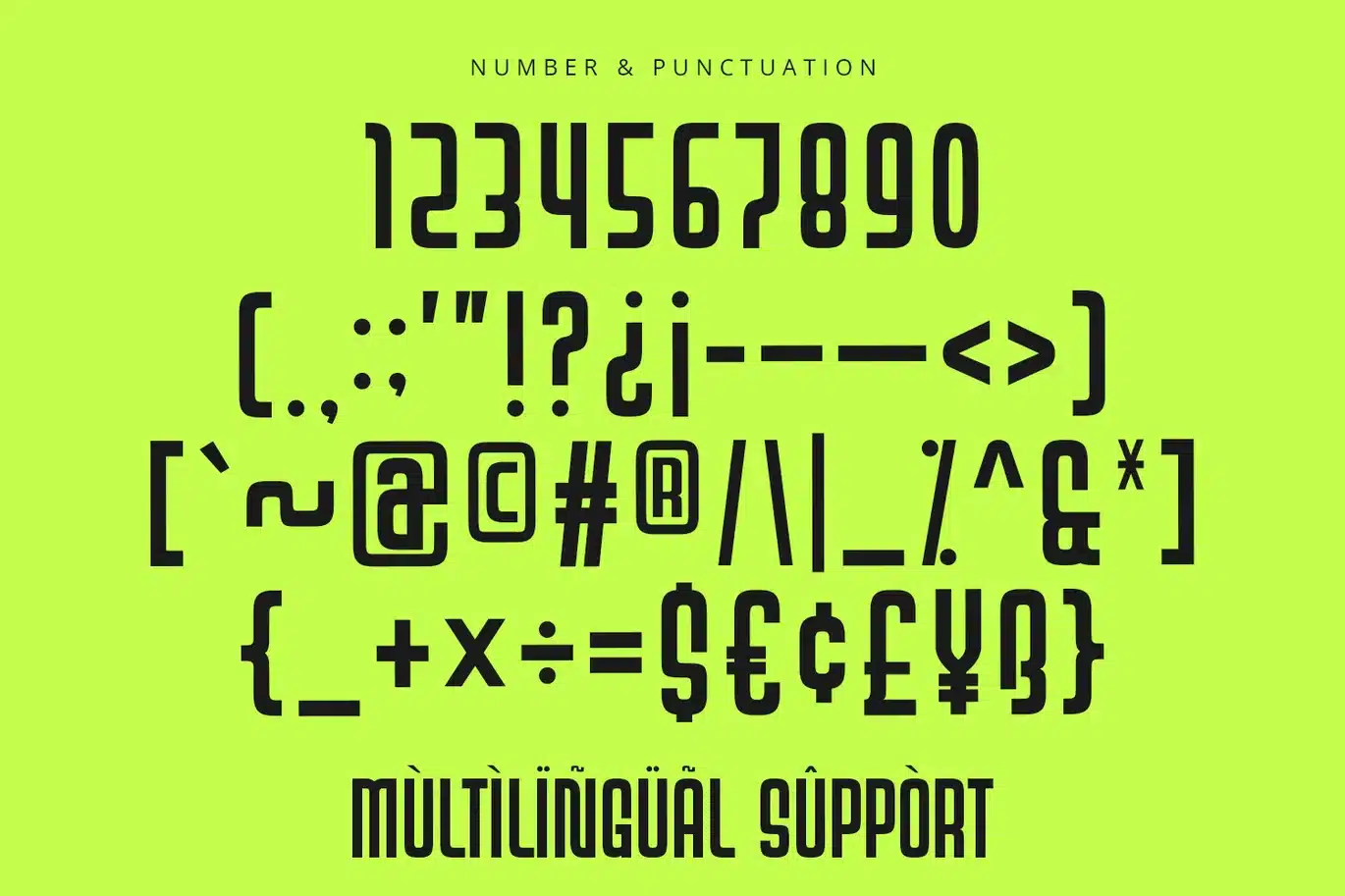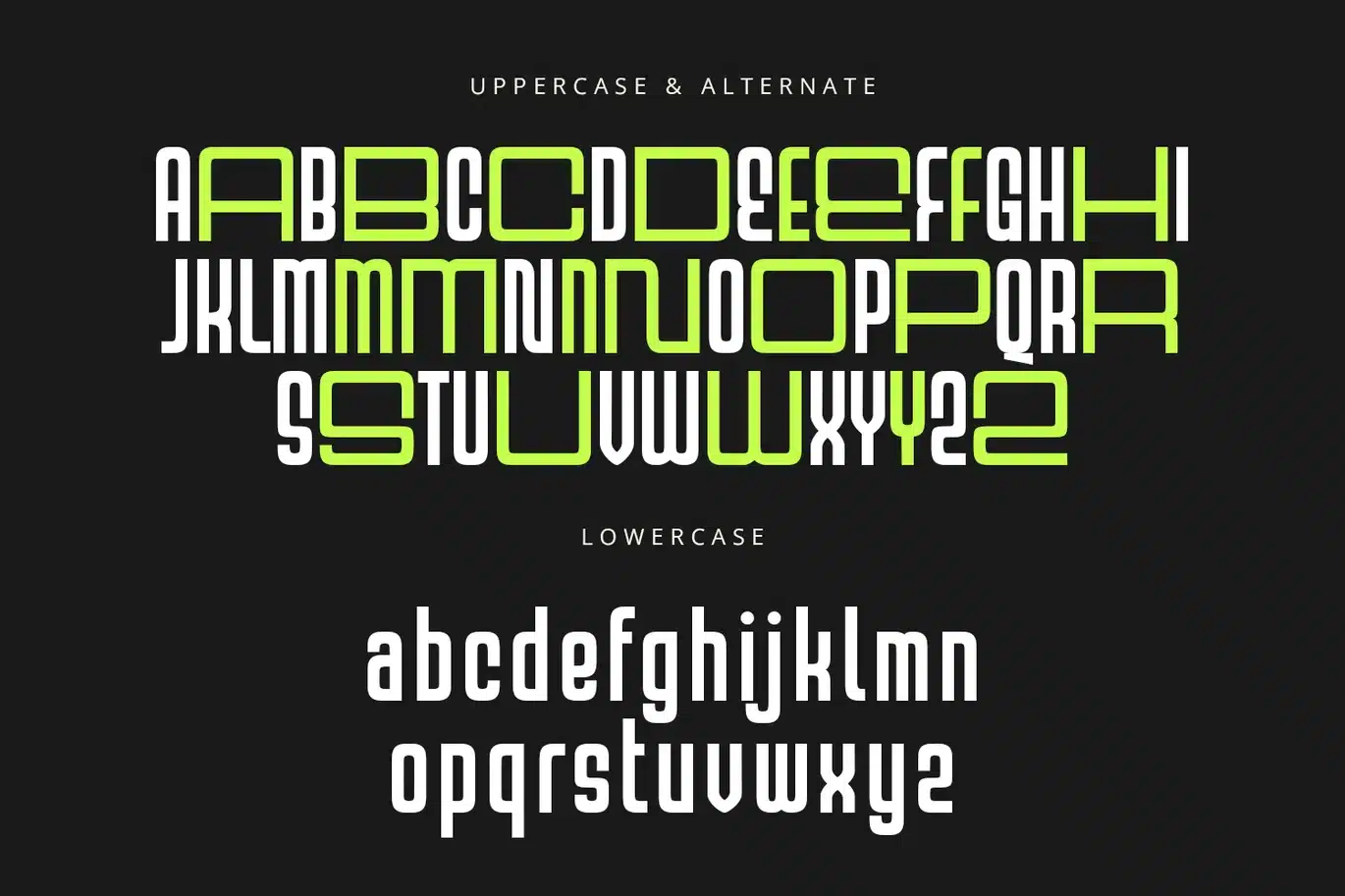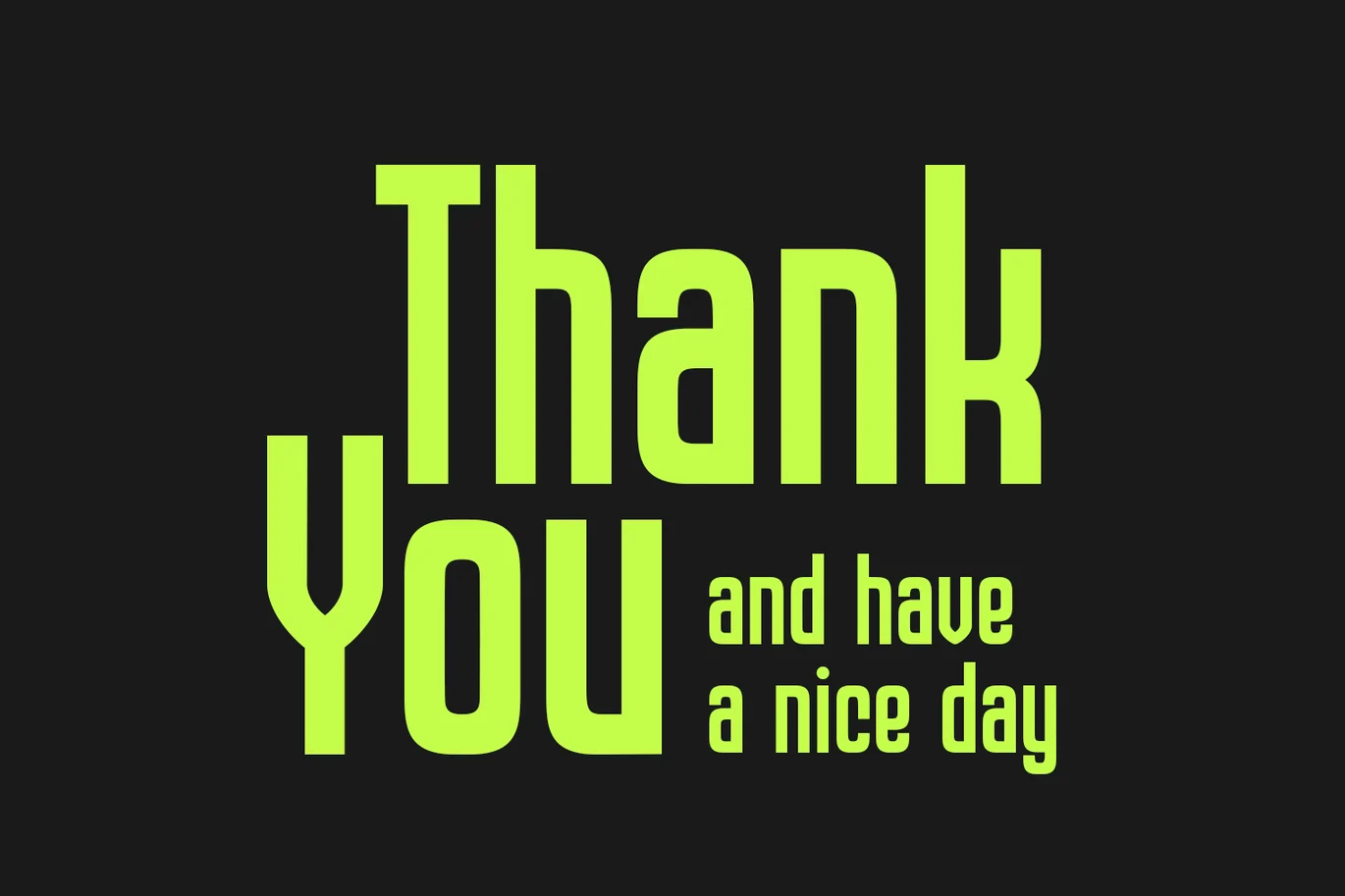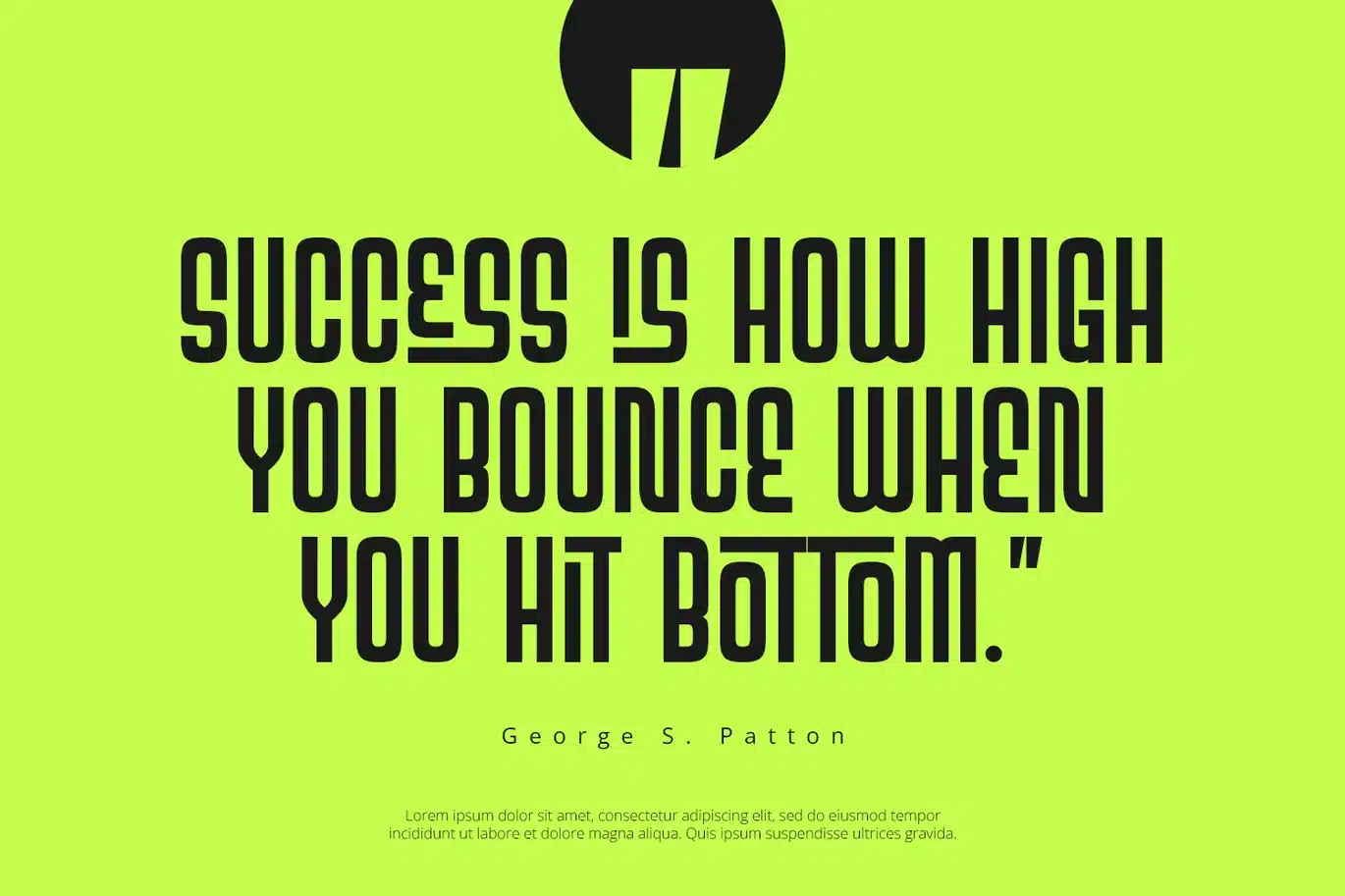
Floria Font
Floria is display font with modern feels.
- Numerals
- Punctuations (OpenType Standard)
- Accents (Multilingual Characters)
- Ligatures and Alternative Style Stylistic Set